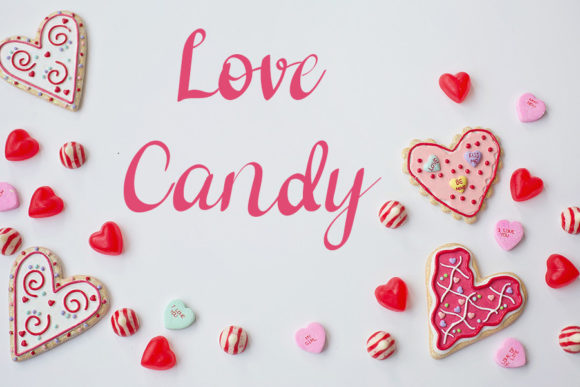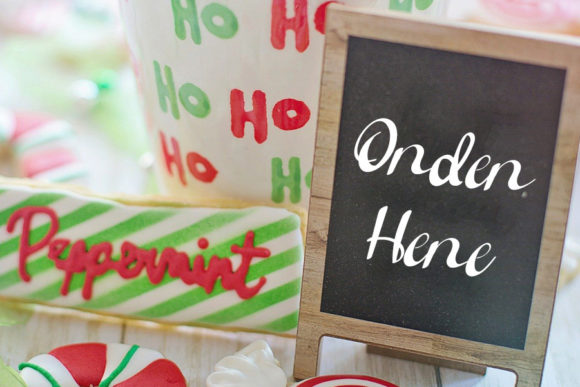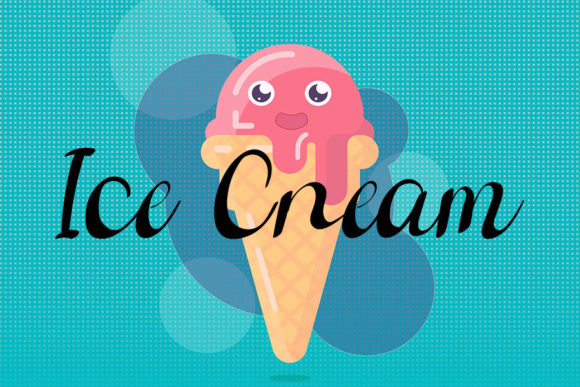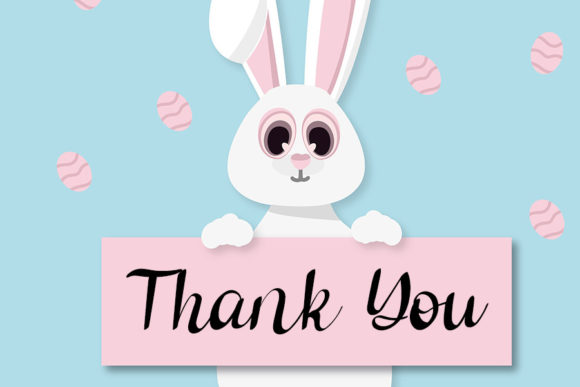
Introducing Birthday Font: The Sweet and Delicate Handwritten Font for Your Special Occasions
Are you looking for a font that can add a touch of romance and personalization to your designs? Look no further than the Birthday Font! This sweet and delicate handwritten font is perfect for creating beautiful wedding invitations, cards, and other designs that require a special touch. In this article, we’ll take a closer look at the Birthday Font, its features, and how you can use it to elevate your designs.
What is Birthday Font?
Birthday Font is a beautiful, handwritten font that is designed to bring a touch of elegance and sophistication to your designs. With its dainty and joyful feel, this font is perfect for creating romantic and personalized designs that will make your customers or loved ones feel special. The font is carefully crafted to resemble handwriting, giving it a unique and authentic feel that sets it apart from other fonts.
So, what makes Birthday Font so special? Here are some of its key features:
- Handwritten feel: The font has a beautiful, handwritten feel that gives it a unique and personal touch.
- Dainty and joyful: The font is designed to be dainty and joyful, making it perfect for creating romantic and celebratory designs.
- Romantic and personalized: The font is ideal for creating designs that require a romantic and personalized touch, such as wedding invitations and love letters.
- Versatile: The font can be used for a variety of design projects, from invitations and cards to posters and social media graphics.
How to Use Birthday Font in Your Designs
Now that we’ve covered the features of Birthday Font, let’s talk about how you can use it in your designs. Here are some ideas to get you started:
- Wedding invitations: Use Birthday Font to create beautiful and romantic wedding invitations that will set the tone for the big day.
- Cards and stationery: The font is perfect for creating personalized cards and stationery for special occasions, such as birthdays, anniversaries, and holidays.
- Social media graphics: Use Birthday Font to create eye-catching social media graphics that will help you stand out from the crowd.
- Posters and flyers: The font can be used to create beautiful posters and flyers for events, such as weddings, baby showers, and birthday parties.
Tips for Getting the Most Out of Birthday Font
Here are some tips for getting the most out of Birthday Font:
- Pair it with other fonts: Experiment with pairing Birthday Font with other fonts to create a unique and interesting look.
- Use it in combination with images: Use Birthday Font in combination with images to create beautiful and eye-catching designs.
- Experiment with colors: Don’t be afraid to experiment with different colors to find the perfect combination for your design.
In conclusion, Birthday Font is a beautiful and versatile handwritten font that is perfect for creating romantic and personalized designs. With its dainty and joyful feel, this font is ideal for writing wedding invitations, cards, and other designs that require a special touch. Whether you’re a designer or crafter, Birthday Font is a great addition to your font collection. So why not give it a try and see how it can elevate your designs?